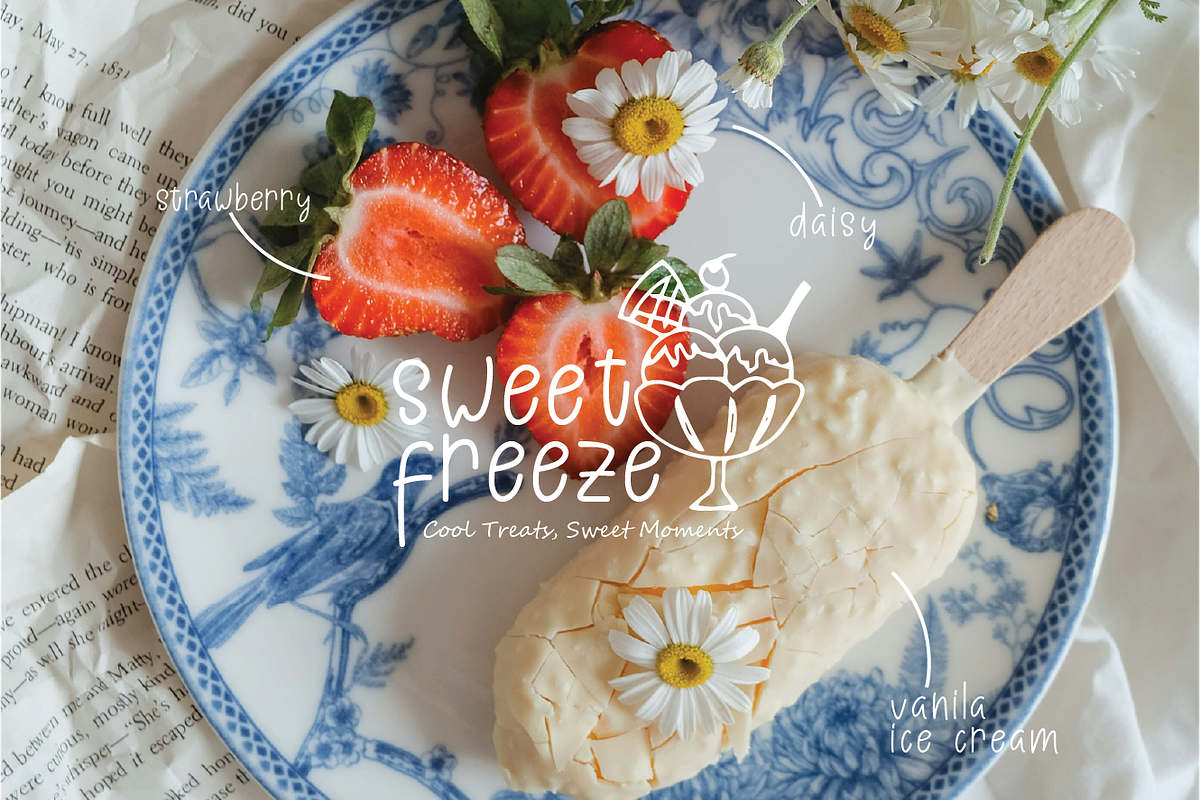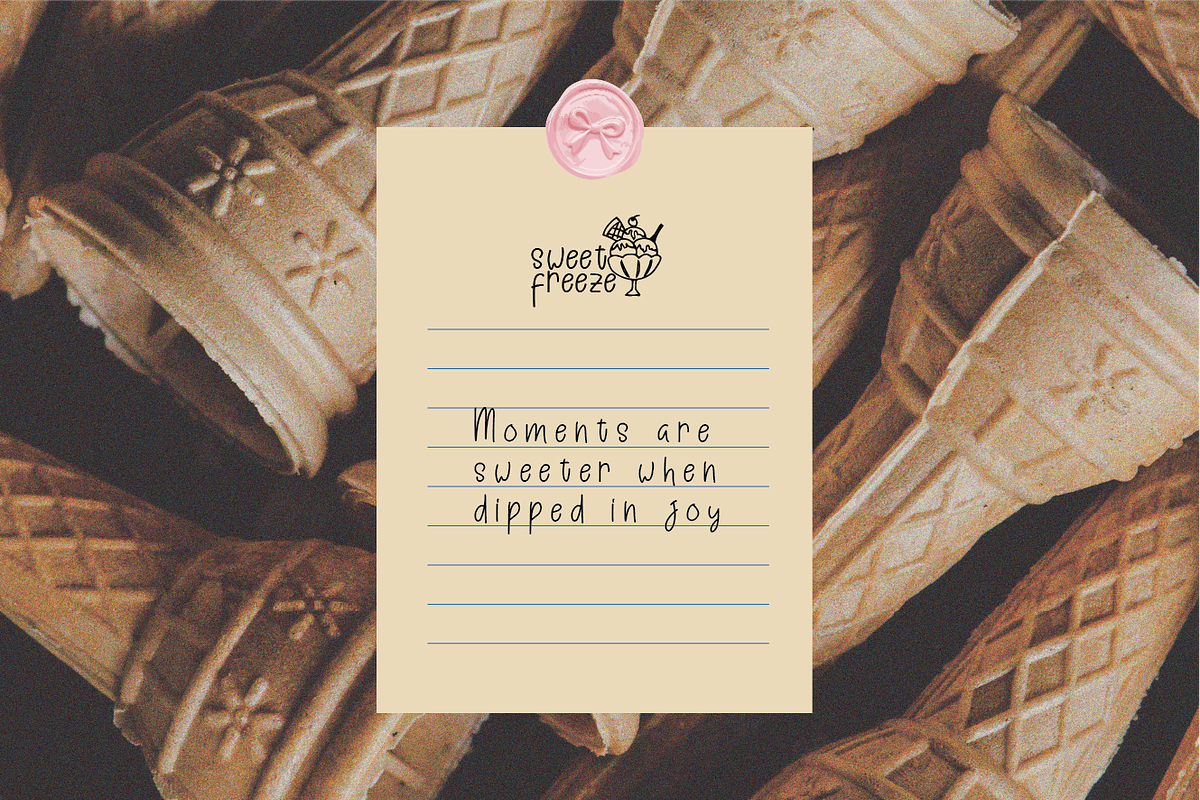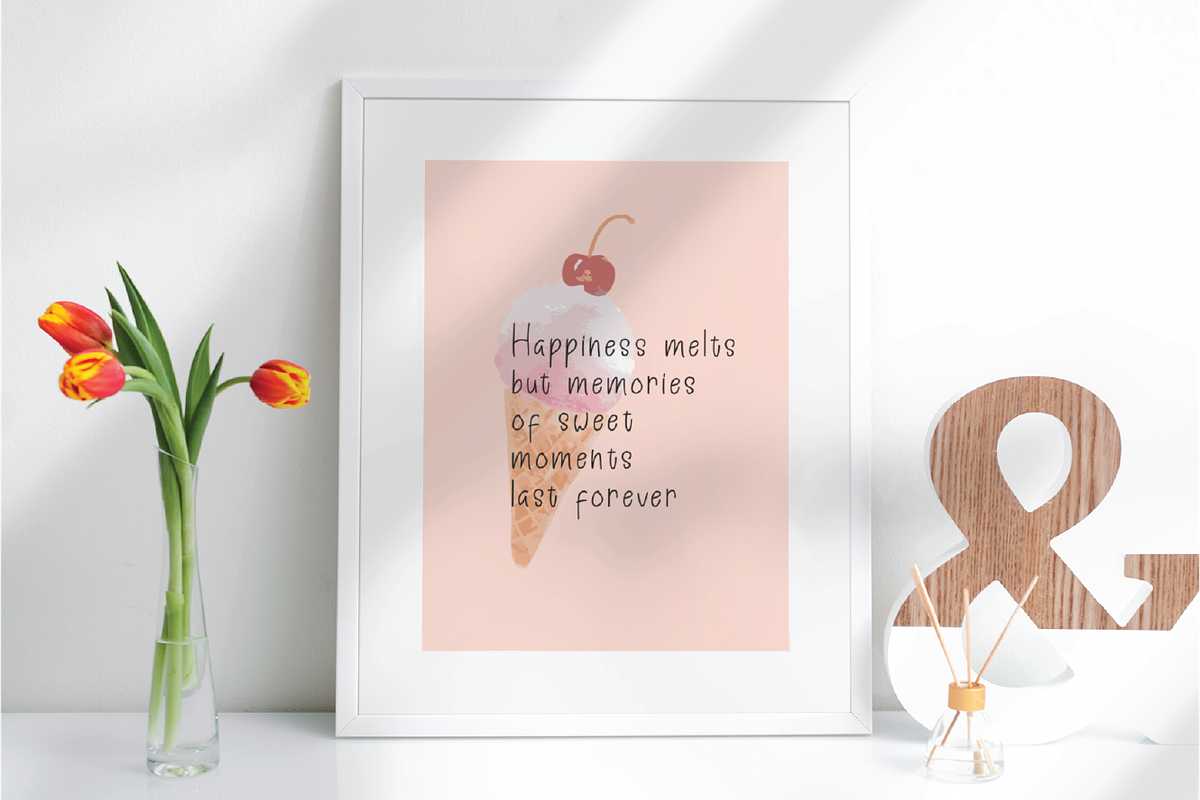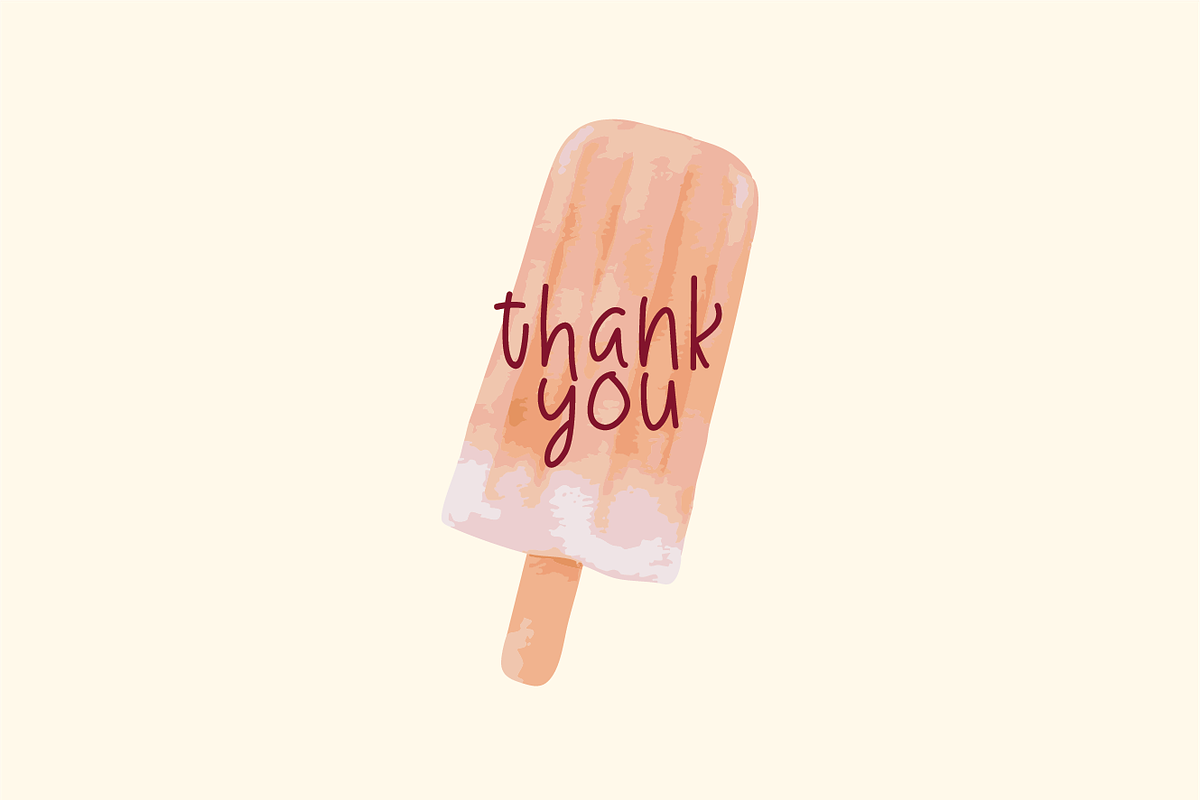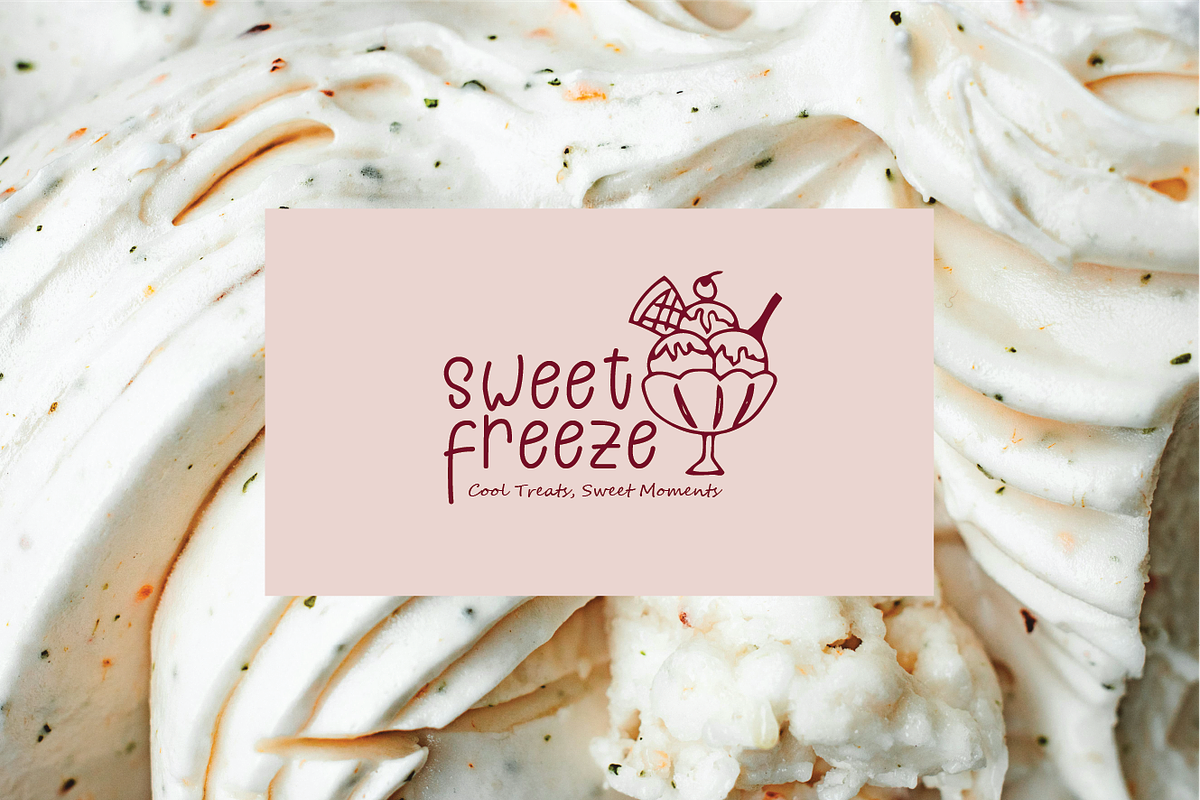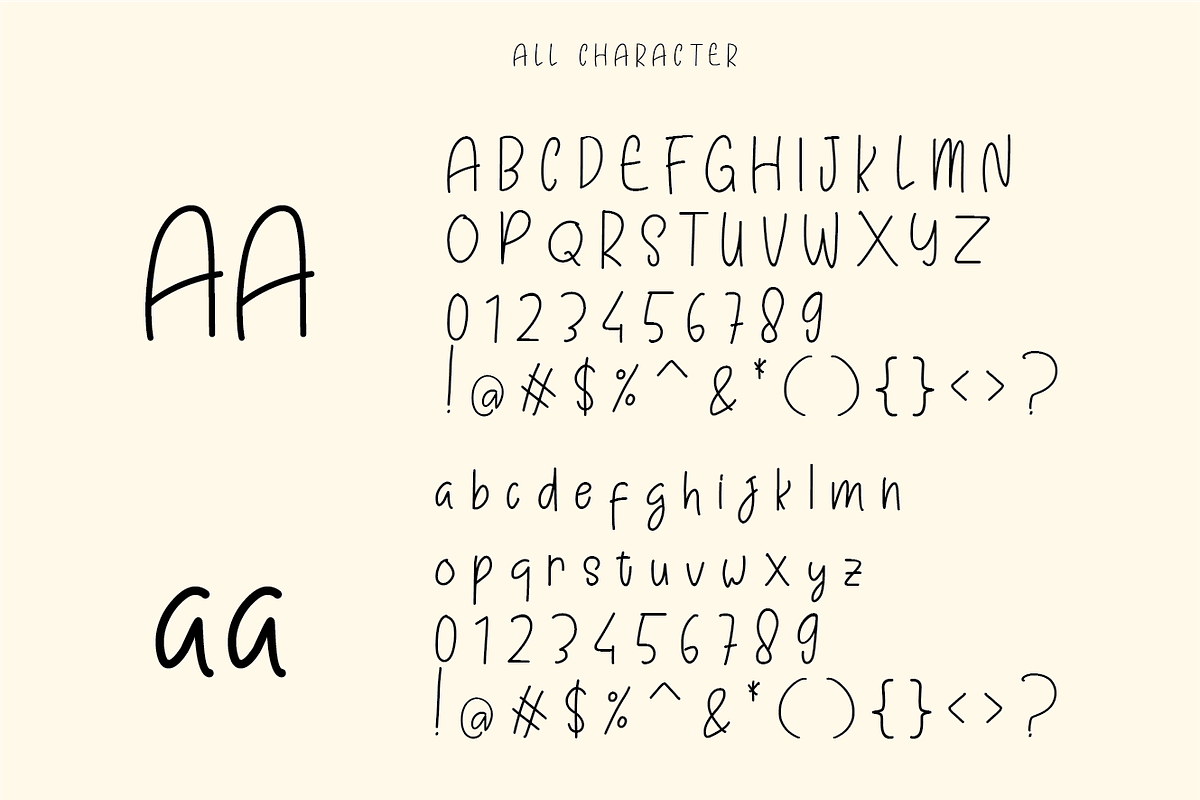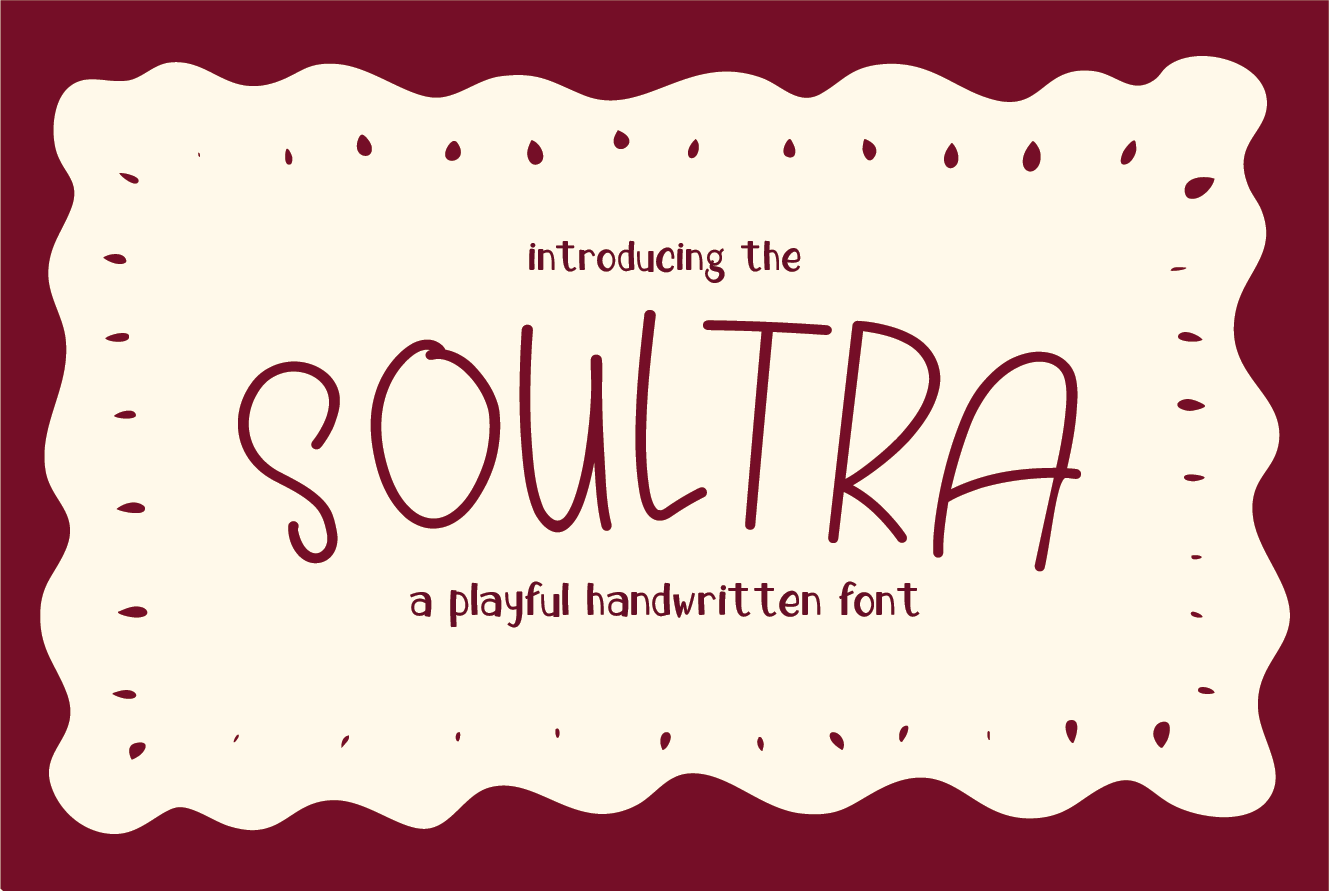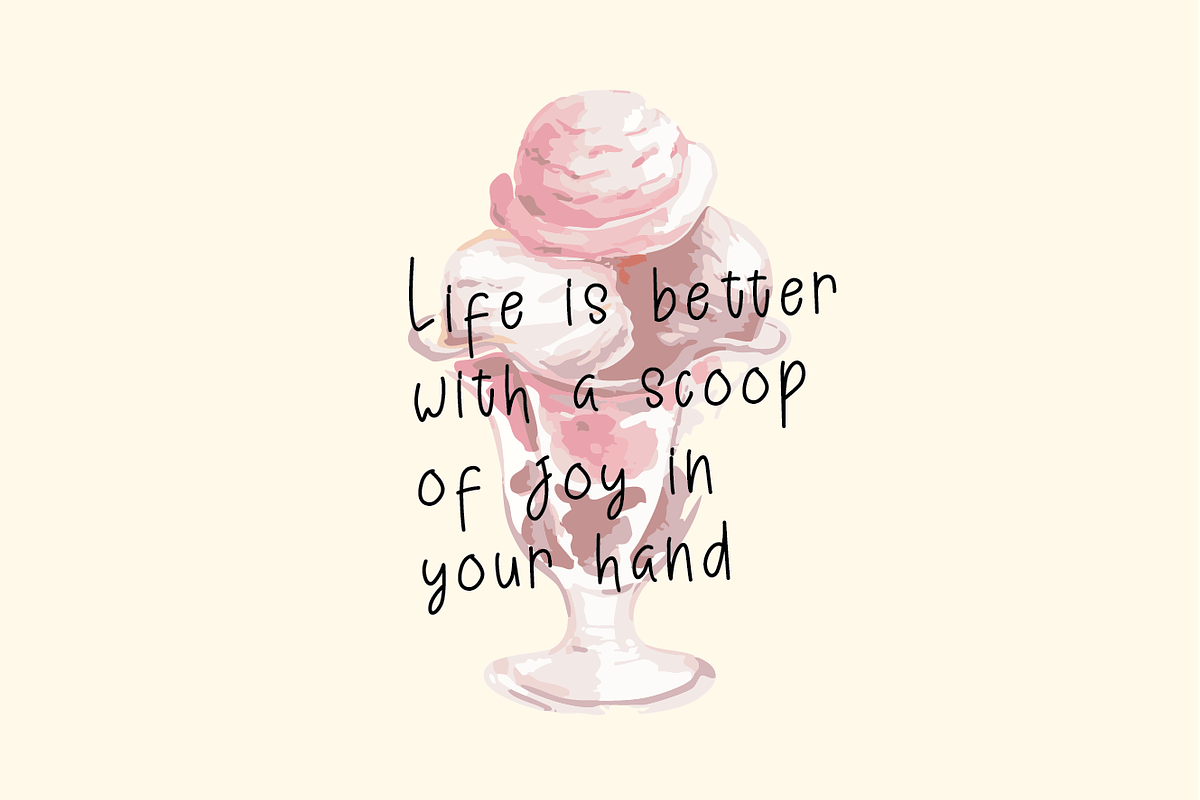
Soultra - Playful Handwritten Font
Soultra The font has a relaxed, handwritten style with fluid, irregular strokes. The letters are thin and slightly whimsical, giving it an organic and personal feel.